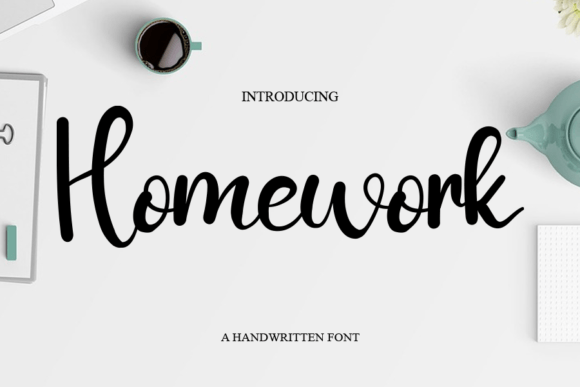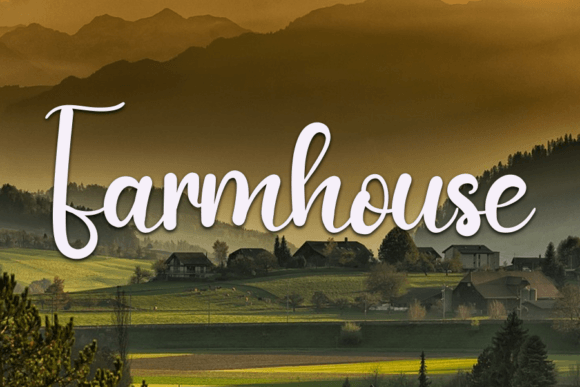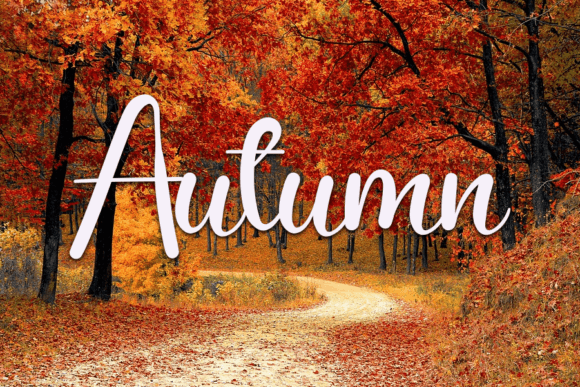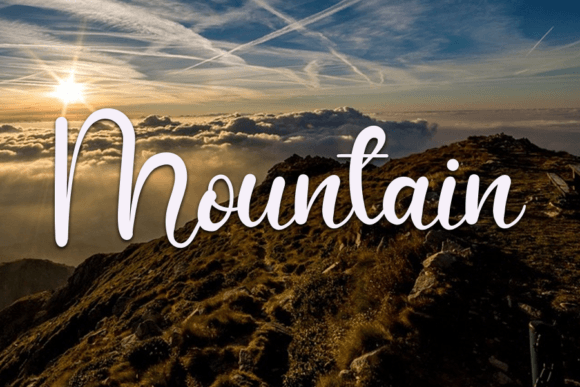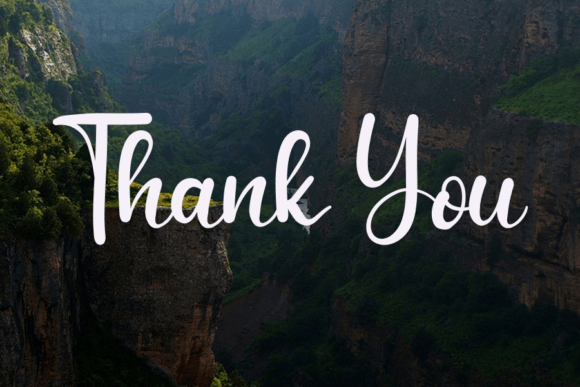
Homewrok Font
About Homewrok Font
Homewrok Font is a playful handwritten script that brings joy and personality to every project. Because of its smooth strokes and casual style, this typeface feels natural and friendly. It works well in both print and digital designs, which makes it a practical choice for personal and professional use.
A Handwritten Script with Simple Style
Handwritten fonts always give designs a personal touch. In the same way, Homewrok Font creates text that looks warm and inviting. Moreover, its flowing letters stay clear, so your work feels both creative and easy to read. This makes it a good option for posters, cards, or any project that needs a natural look.
Perfect Typeface for Crafts and Greeting Cards
If you enjoy handmade projects, this font is an excellent tool. For example, it can turn birthday cards or thank-you notes into memorable keepsakes. In addition, it works beautifully for wedding invitations or holiday greetings. Because of its playful charm, every message gains a personal and heartfelt touch.
A Script Typeface for Branding and Social Media
Brands and creators often want designs that feel approachable. Therefore, using Homewrok Font for logos, labels, or packaging can help products stand out. On social media, it adds style and personality to posts and banners. When paired with a clean sans serif, the result is modern, clear, and creative.
Flexible Across Print and Digital Projects
This handwritten font is flexible across different formats. As a result, it looks great on posters, flyers, and merchandise in print. At the same time, it improves websites, blog graphics, and presentations online. Because it remains clear at any size, it is a reliable choice for designers who work on varied projects.